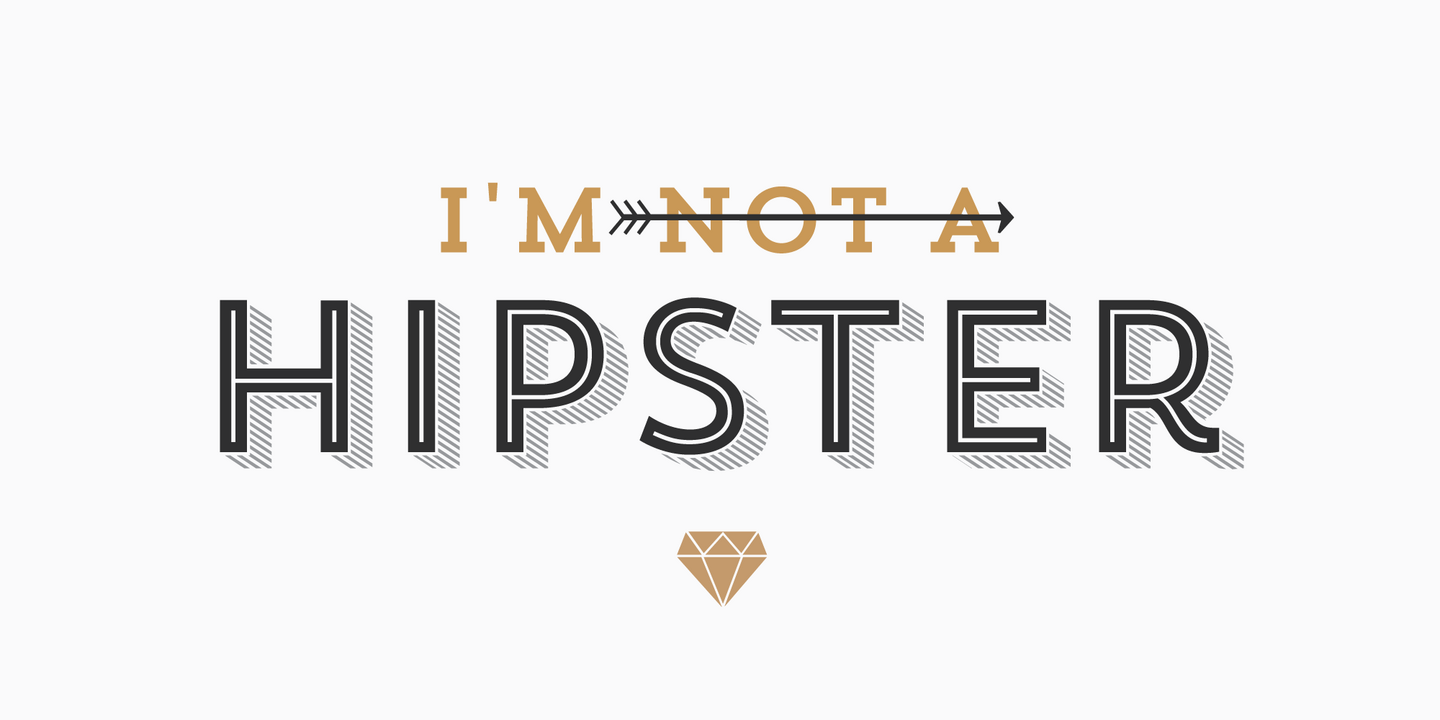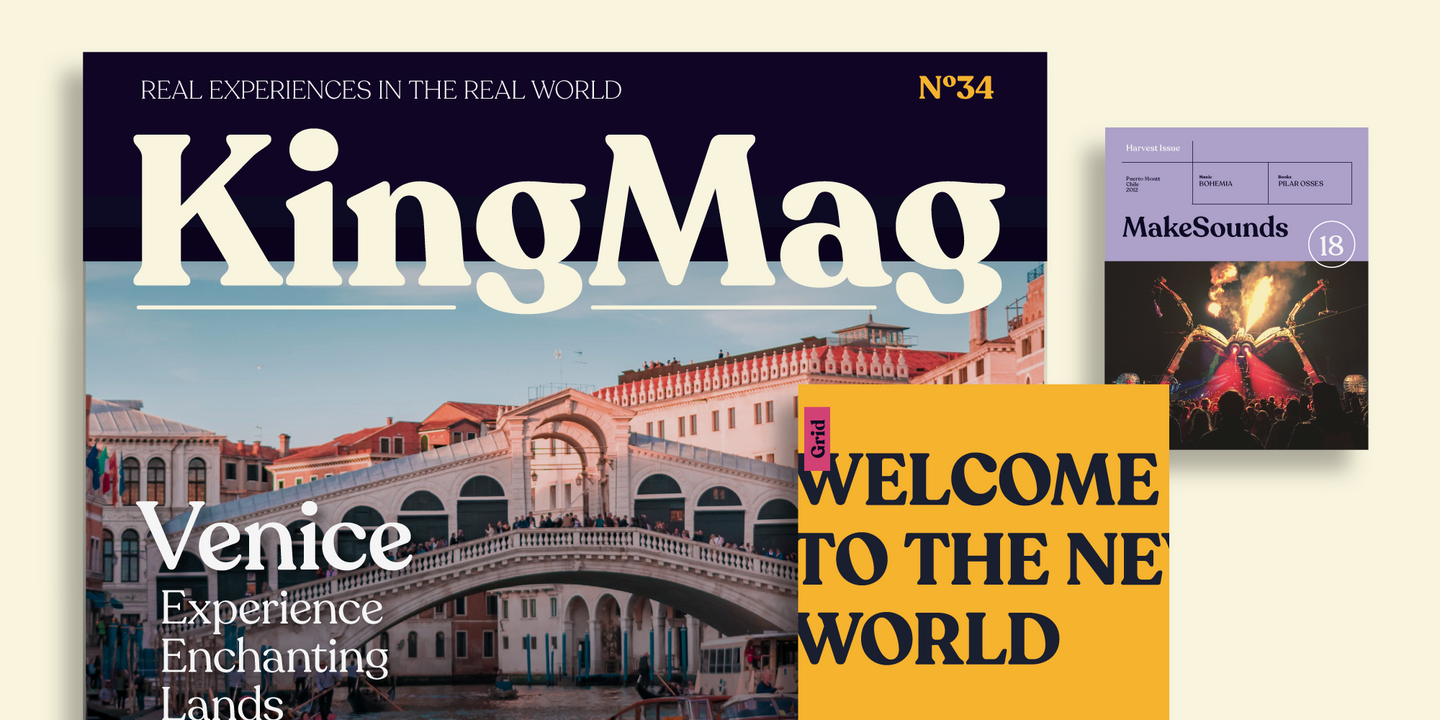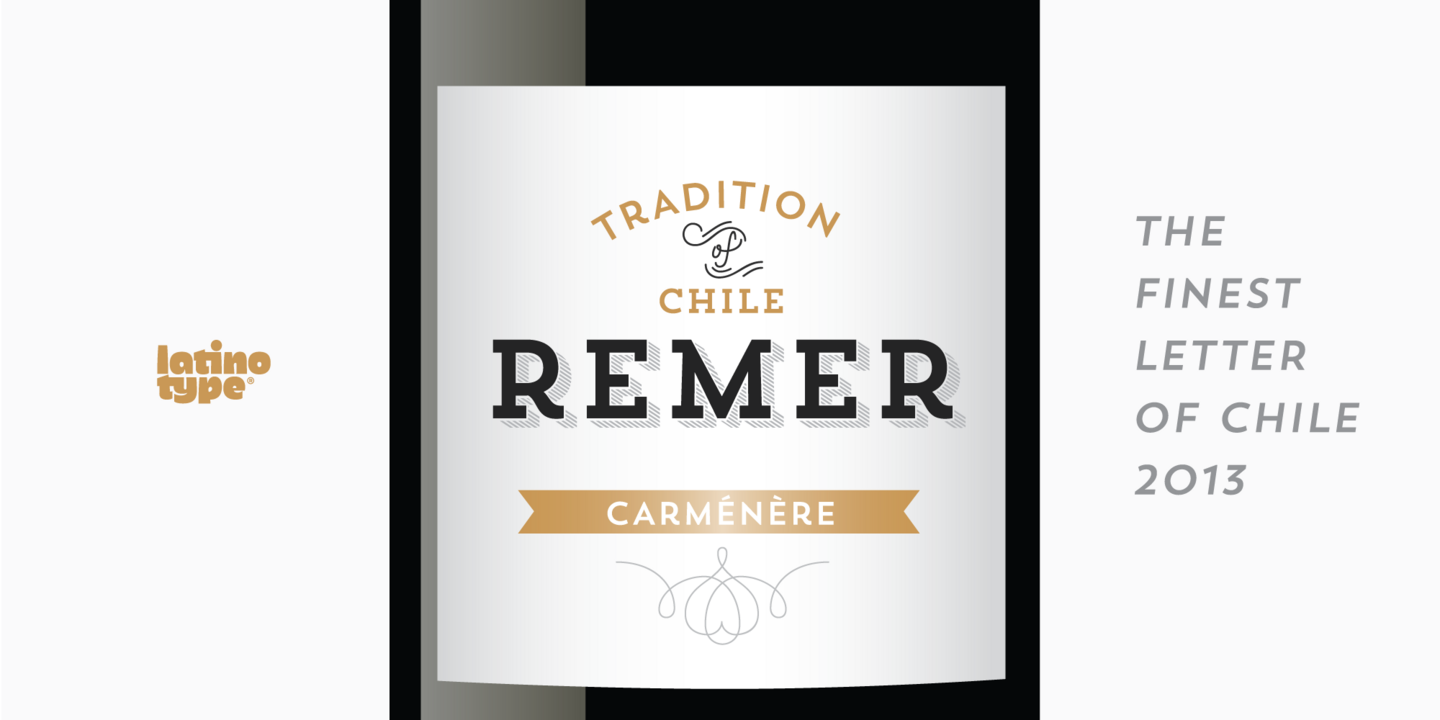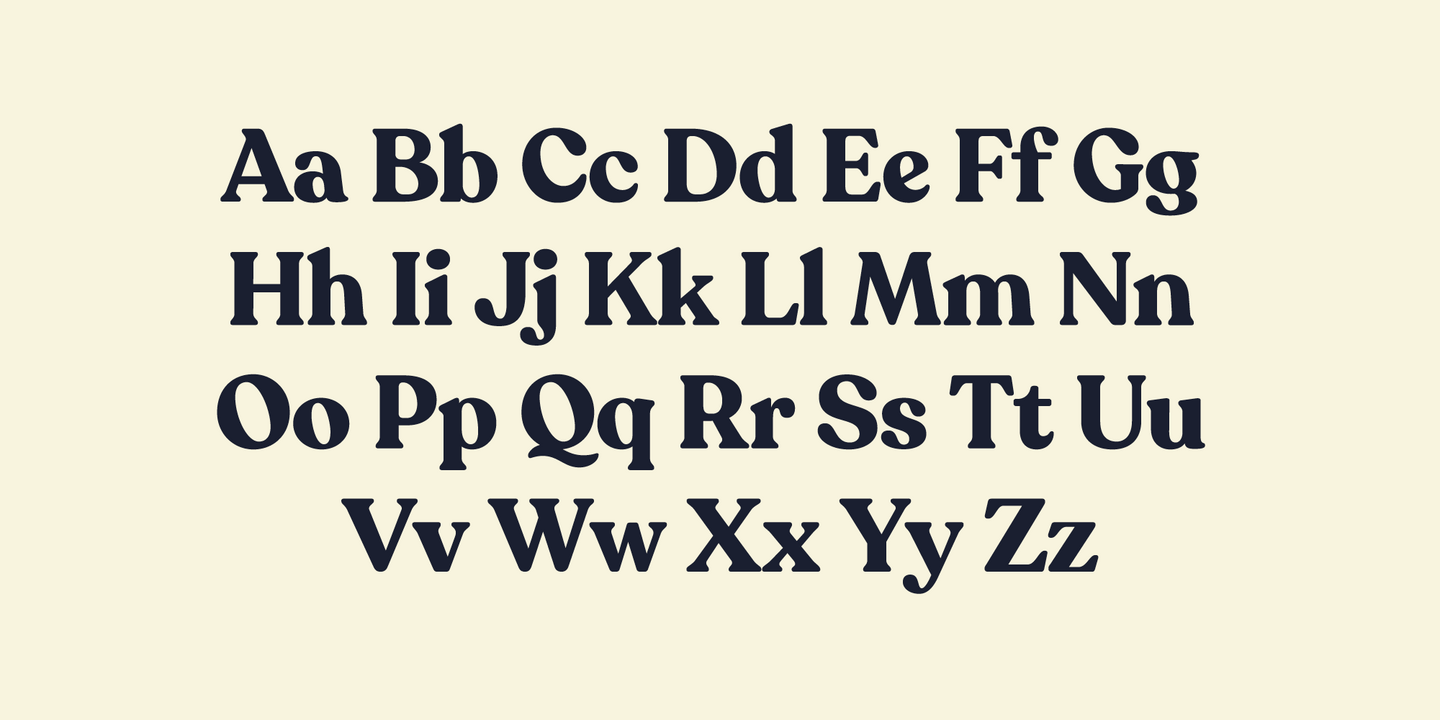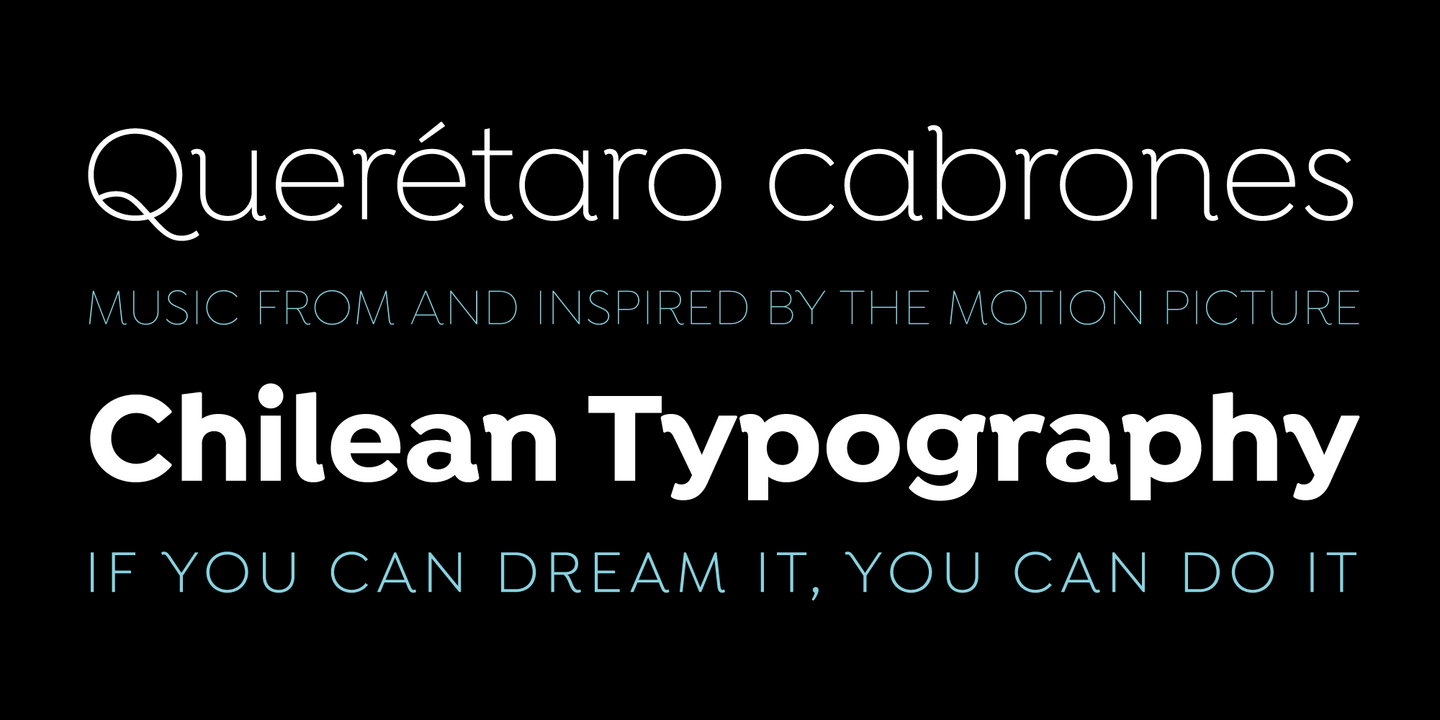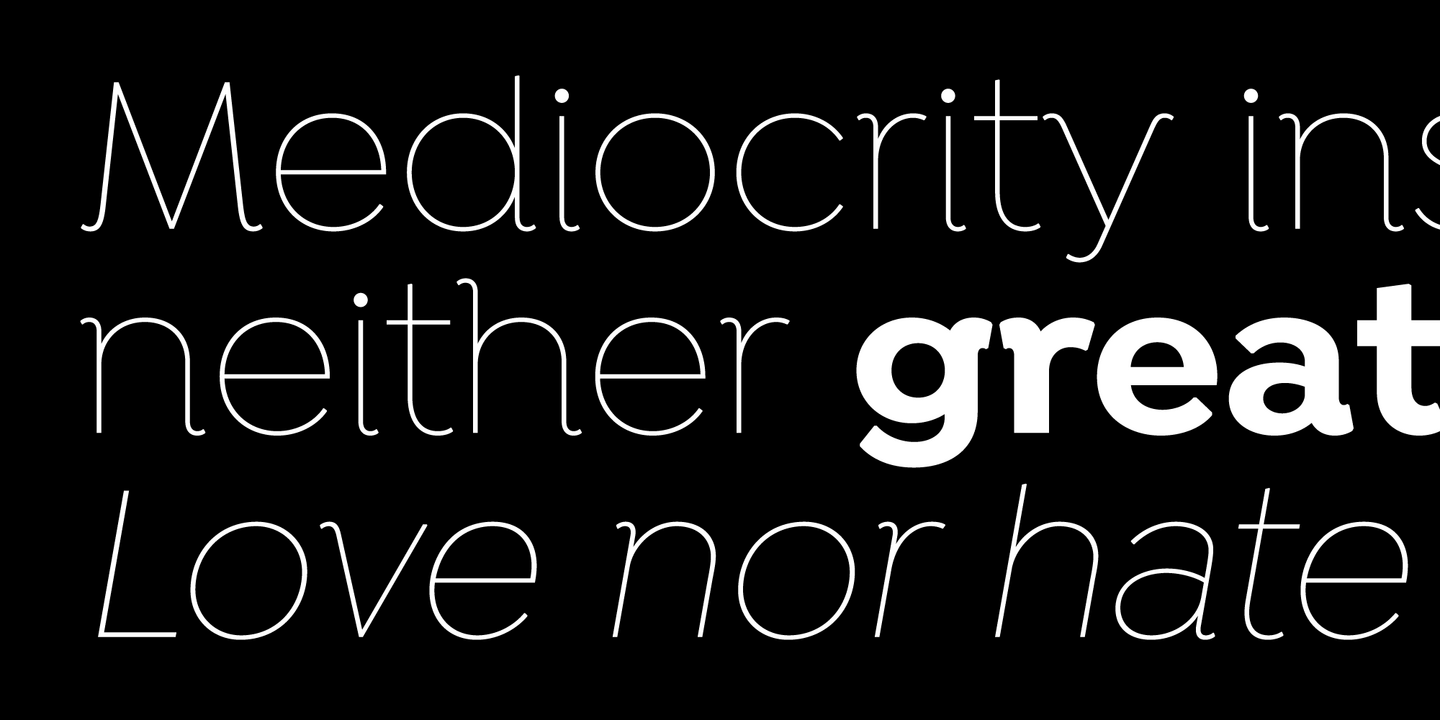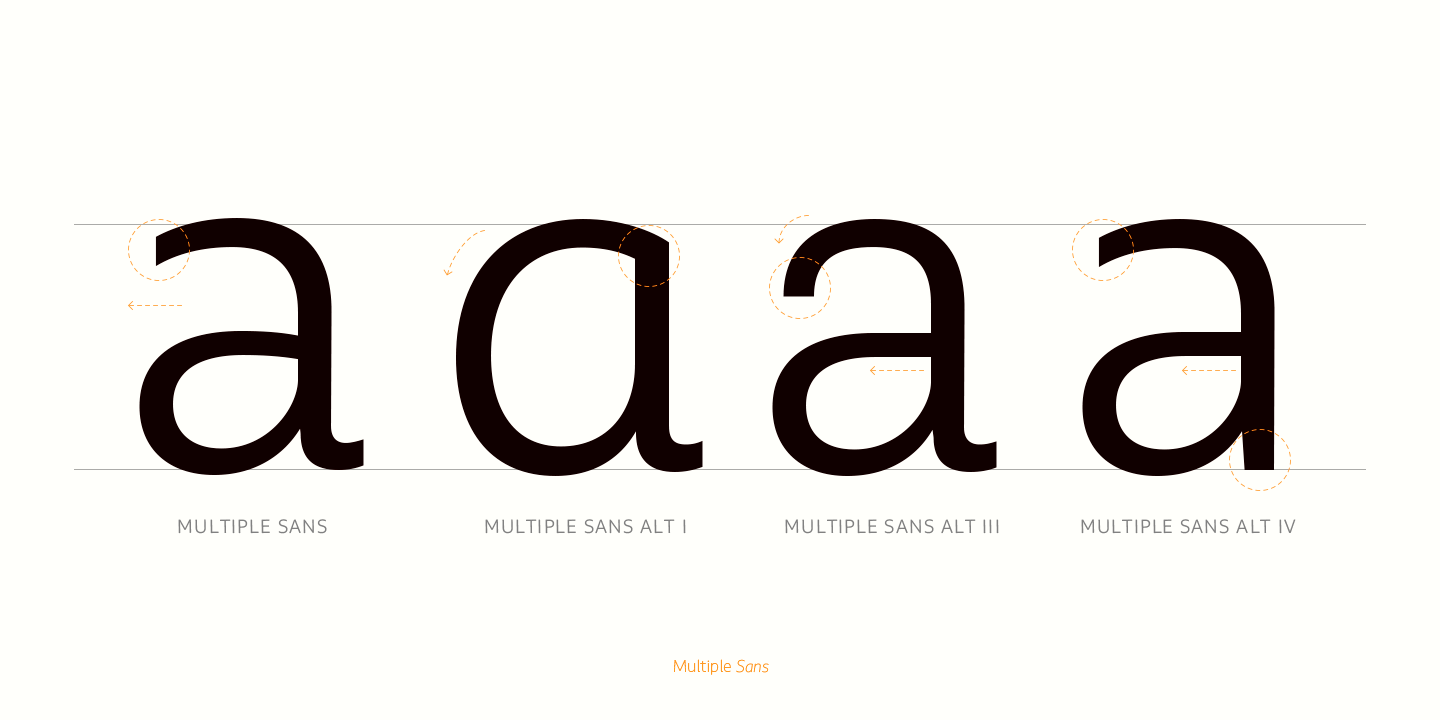
Just like Grandma’s recipe, Recoleta combines a variety of ingredients—from various popular 1970s typefaces—such as the soft and gentle shapes found in Cooper or the fluid, angled strokes in Windsor— mixed into one single design that features familiar, yet fresh, modern flavors. Its variety of weights provide a range of choices that will help you find the best typographic color for your project. Lighter weights are well-suited for body text while heavier ones are ideal for high impact headlines.
Juana is the result of a journey to self-discovery and part of a continuous exploration process. The font, based on Jazmín https://www.myfonts.com/fonts/latinotype/jazmin/ typeface, features a more developed design while still maintaining the essence of the original version.
As its name suggests, Multiple is a family with multiple font styles. The idea that sums up the concept behind the typeface is workhorse—the challenge was to develop a useful font fit for any scenario and suitable to any design needs: editorial design, packaging, branding, screen use, etc.
Multiple features soft, rounded shapes and large counterforms which make it well-suited for both text and display usage. The proportions are based on classic typefaces yet its design was specially created to provide a high degree of versatility.
Trend , Trend Hand Made & Trend Rough is a font made of layers, taking as a basis a sans and a slab font. It is the result of observation, search and study of the last global trends. Trend tries to capture the aesthetics of fashion or even fashion itself, integrating elements of a very popular and current trend. It is a typeface designed to be used without need to add anything external to it, because it has all components required for this. Trend is trending.
Designed by Enrique Hernández V. Isidora is a modern geometric design based on the classic typefaces of the early 20th Century with a contemporary and functional touch. In spite of its strong and rational structure, the font also looks friendly and expressive, thanks to its rounded terminals. In addition, its diagonal terminal cuts give it a softer and more rounded appearance.
Branding Super Family is a Sans Serif spurless font with medium-large x-height, straight curves and convex terminals. It has 7 weights and 4 widths that vary from thin to black, and from ultra condensed to medium, each with their matching italics. It also includes a set of 544 characters supporting 128 languages. OpenType characteristics include European accents, old style numbers and 4 sets of alternates.
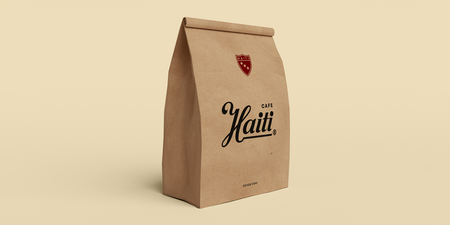
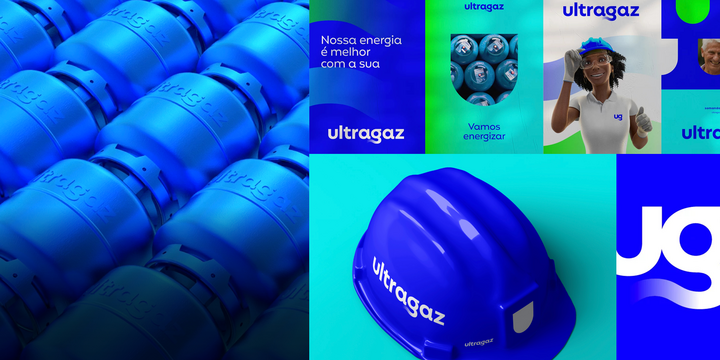
Fonts by Latinotype
Latinotype was founded in Chile in 2008 as the first typeface distributor in Latin America. Since then, we’ve grown into a dynamic team of typography lovers, with offices in Santiago and Concepción. In our library you’ll find exactly what you need. Furthermore, if you’re looking for a typeface to be exclusively yours, we make bespoke fonts and customize from our catalog.
Co-founder
Daniel Hernández
Graphic Designer. Design Graduate of Universidad Mayor in 2006, and with a Diploma Course in Typography from Pontificia Universidad Católica de Chile in 2007. He has exposed and presented his work in different typographic Biennials and exhibitions. He is a Co-founder of Latinotype Foundry.
Founding partner
Luciano Vergara
Graphic Designer, Design Graduate of Universidad Mayor, and with a Diploma Course in Typography from Pontificia Universidad Católica de Chile in 2003. Works as graphic designer in design studio Mendoza & Vergara. Since 2008 is founding partner of Latinotype Foundry.
General Manager
Elizabeth Hernández
Graduate in communication sciences from Mayor University. She has been working as general manager at Latinotype since 2015, in addition to designing her own typefaces such as Juana, Jazmin, Hernández Bros.
Support
Pablo González
Civil Industrial Engineer from the University of Chile, is in charge of supporting and automating different processes such as sales calculation, among others.
Type Designer
César Araya
Designer in Visual Communication and Bachelor of Arts and Sciences of Visual Communication UTEM, Diploma in Digital Typography from the University of Chile. Since 2015, he has worked as Typeface Designer at Latinotype and professor of the Typography I and II lectures, of the UTEM.
Production and Design
Felipe Sanzana
Graphic designer and typographer. His work has been selected at the Ibero-American Design Biennial and at the Tipos Latinos Biennial both in the category of fonts for texts and of non-alphabetic systems. He works currently at Latinotype in the production and design of digital fonts.
Graphic Designer
Alexis Navarro
Graduated from DuocUC and Diploma in Typography Design from Universidad Católica de Chile in 2018. He has collaborated as a typeface designer with many foundries and studios. He is currently a typeface designer at Latinotype Foundry.
Andre Ribet A.
Web Graphic Designer. User interface and user experience specialist. Website layout, maintenance and technical support of digital platforms (e-commerce), digital product catalog manager and promotions.